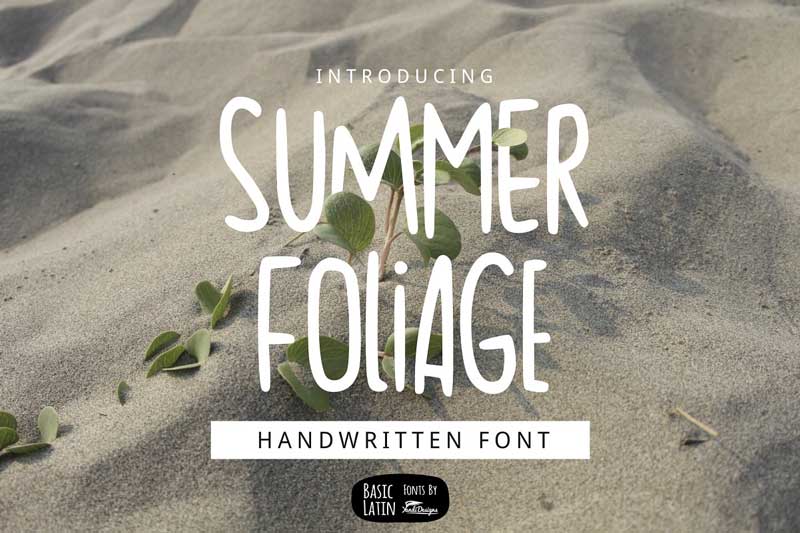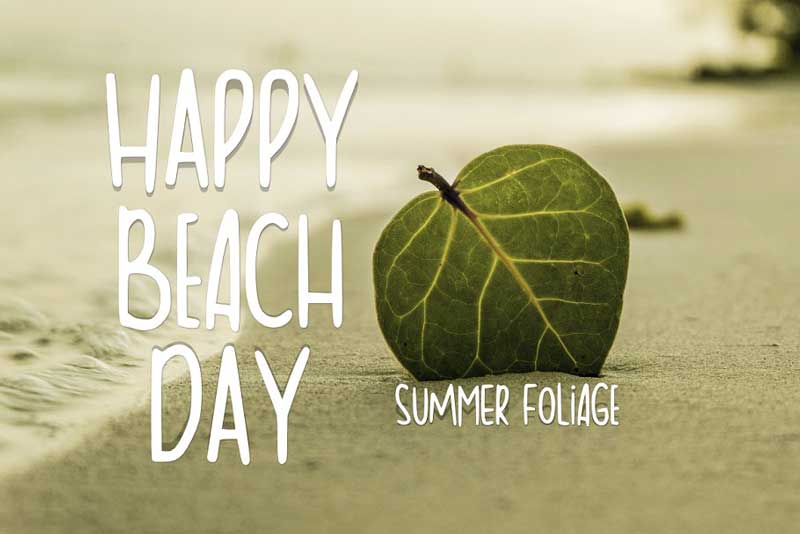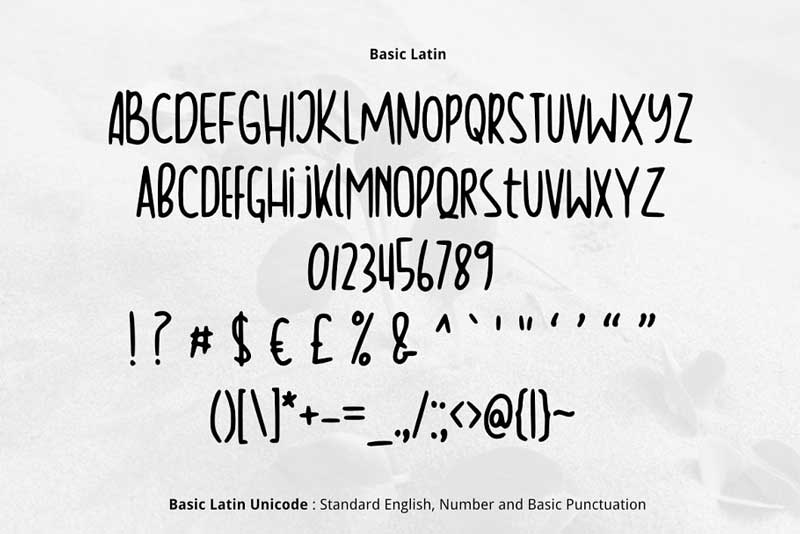
Summer Foliage Font
Summer Foliage is lovely, cute, simple, multipurpose handwritten font, suitable for many project children’s books, quotes, logo, heading, title, etc. Summer and holiday font.